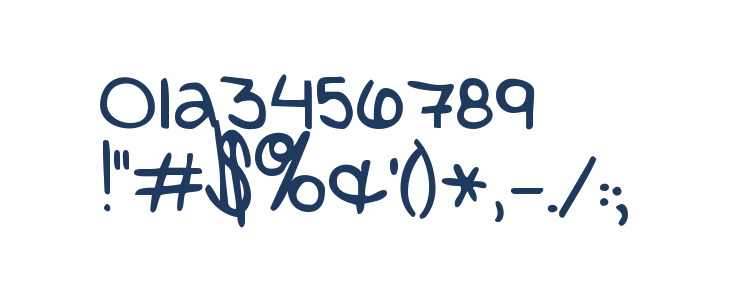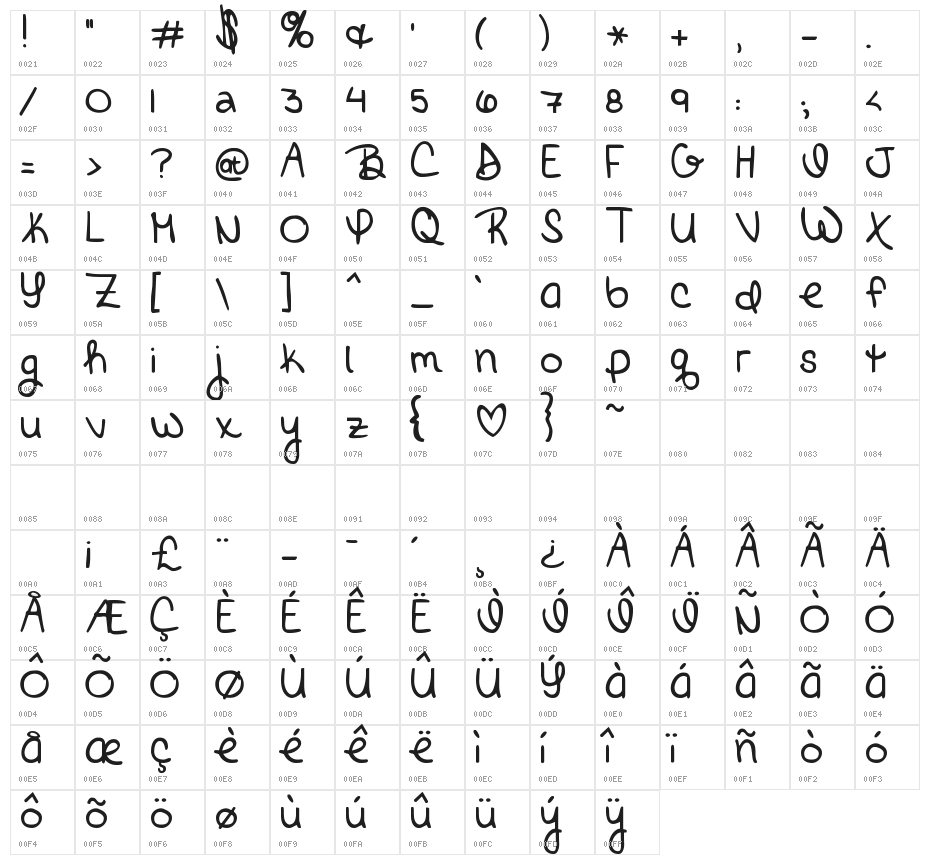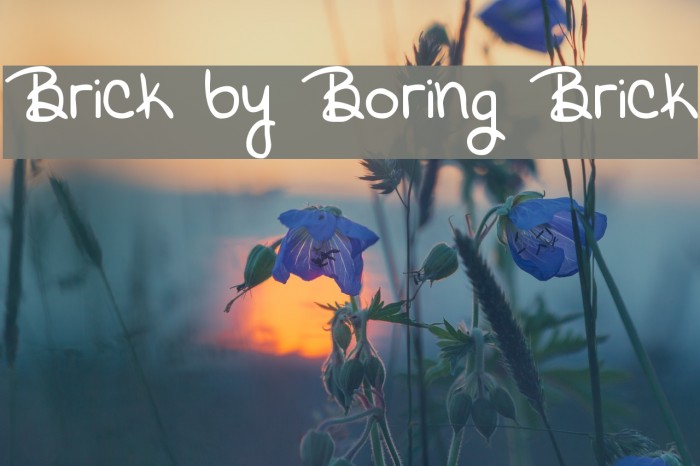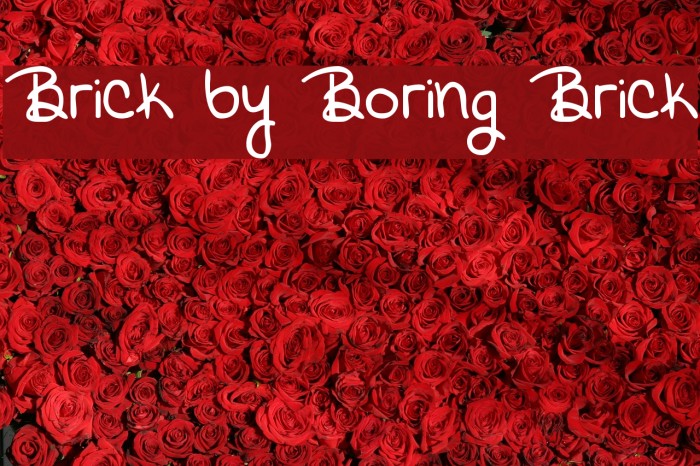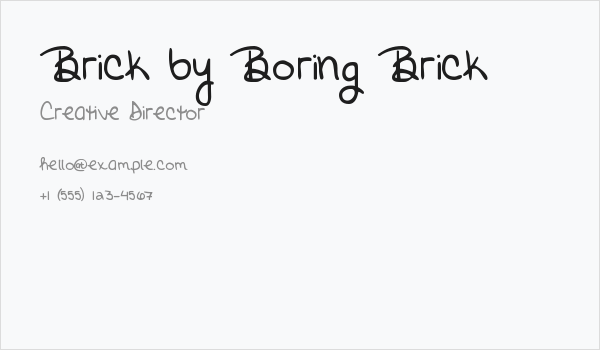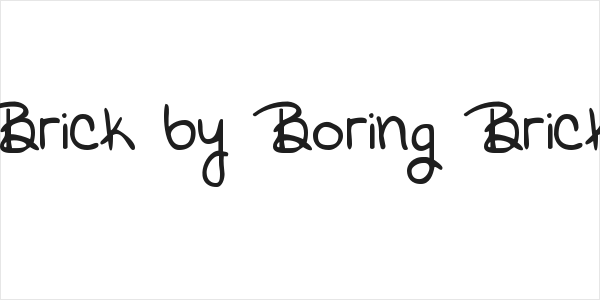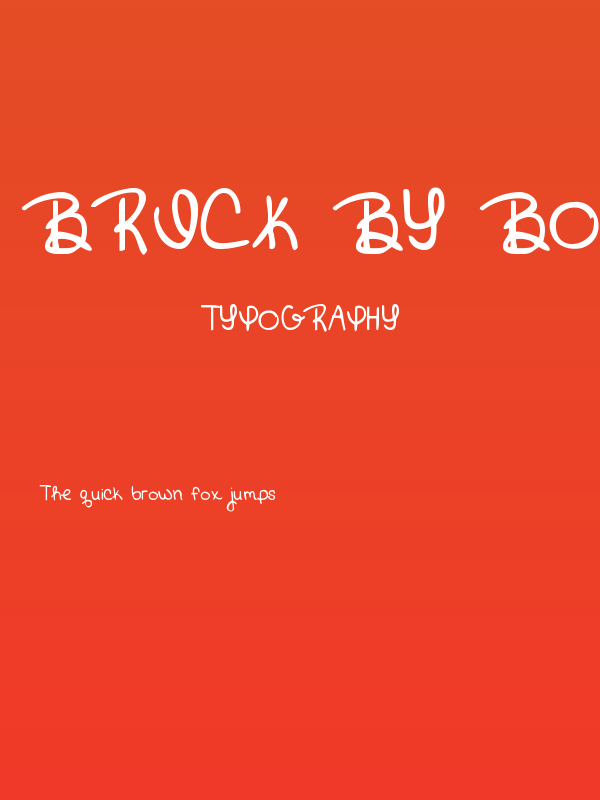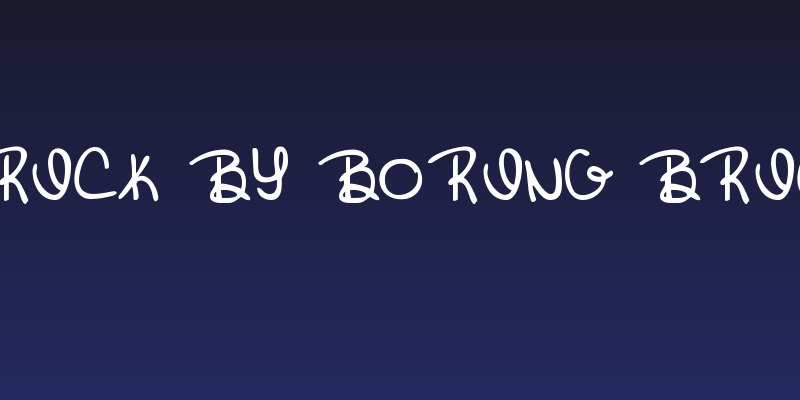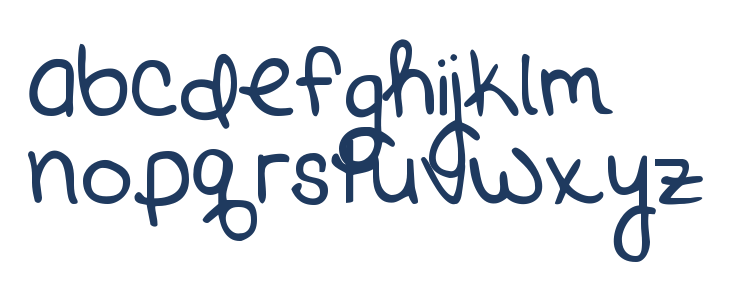
Brick by Boring Brick Font
Brick by Boring Brick Description
This playful and whimsical font features a handwritten style with a casual and informal appearance. The letters are characterized by their rounded edges and slightly irregular shapes, giving them a friendly and approachable feel. The uppercase and lowercase letters maintain a consistent style, with a smooth flow and a sense of movement. The numerals and special characters are designed to match the overall playful aesthetic, making them suitable for creative and fun projects. The font's unique personality makes it stand out, while still being legible and versatile.
Overall StylePlayful
Use CaseHeadlines, Logos, Creative projects
Proposed ProjectsIdeal for children's books, greeting cards, playful branding, and creative posters.